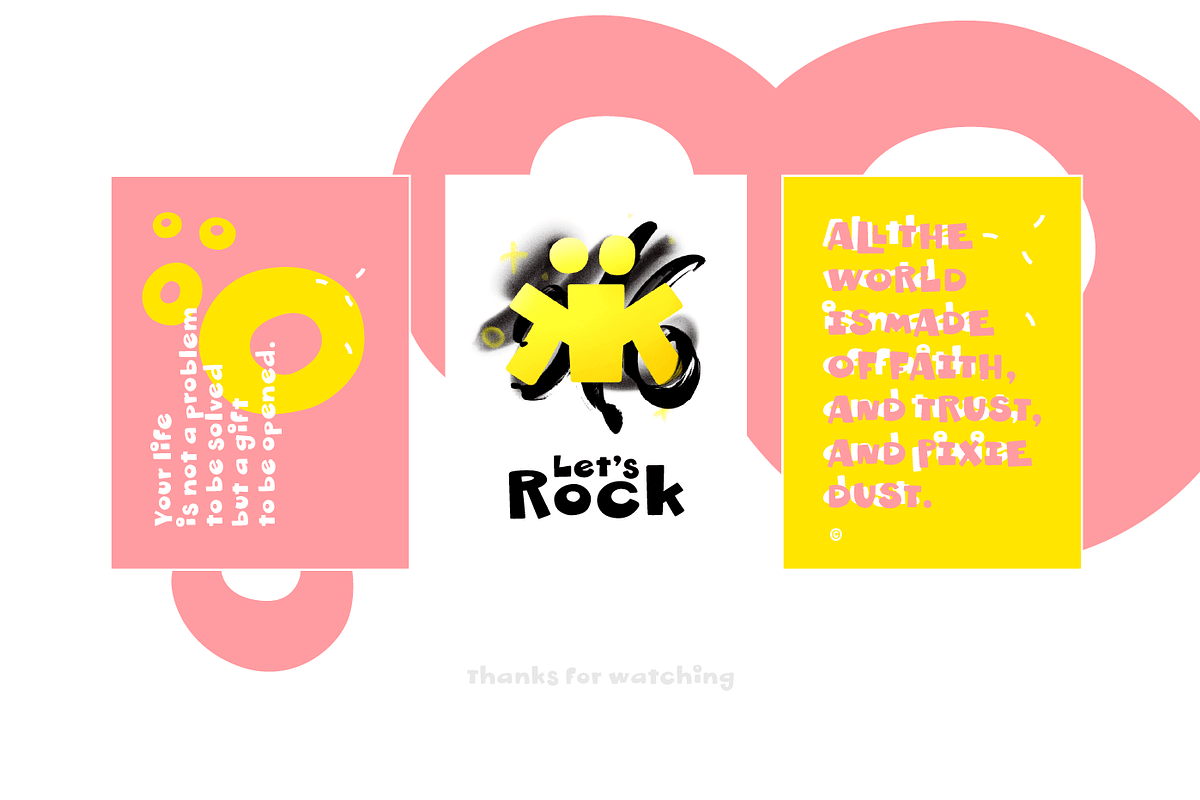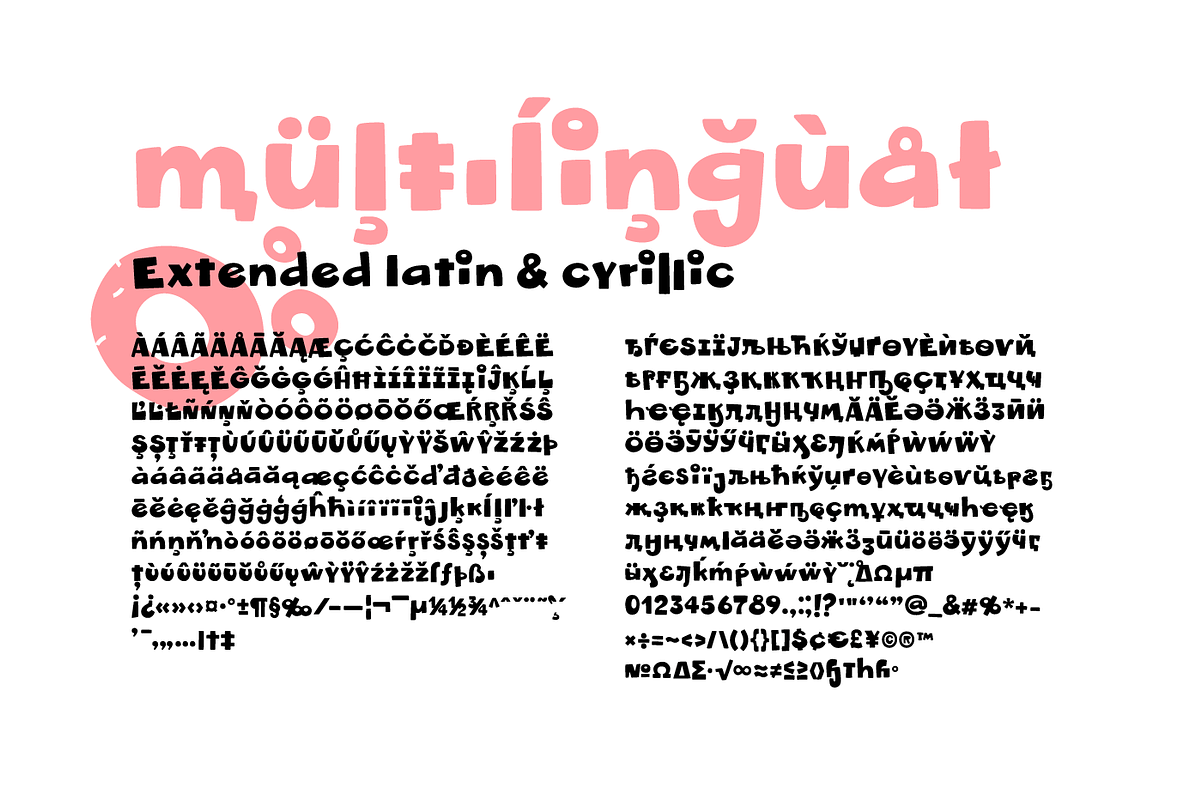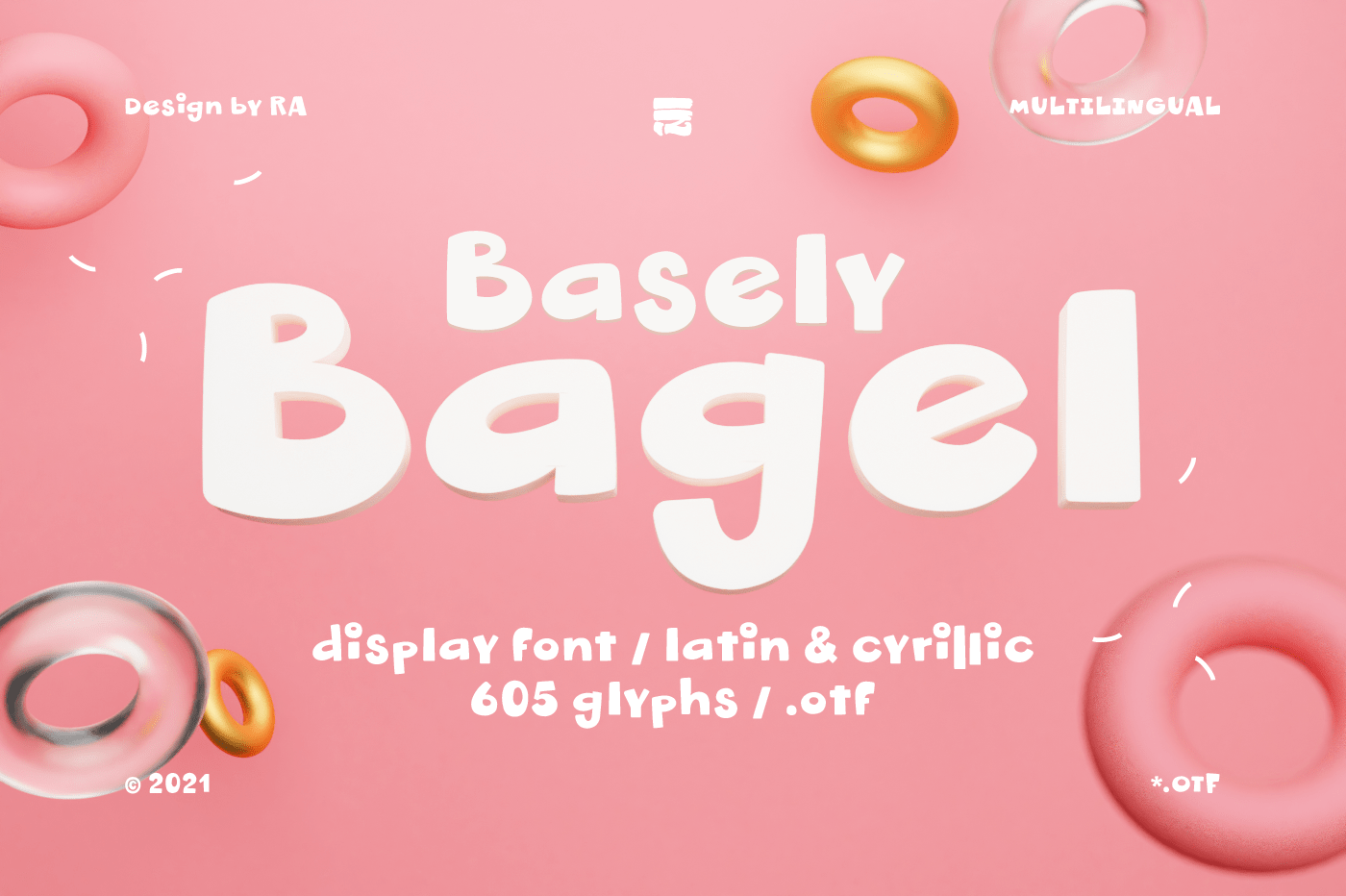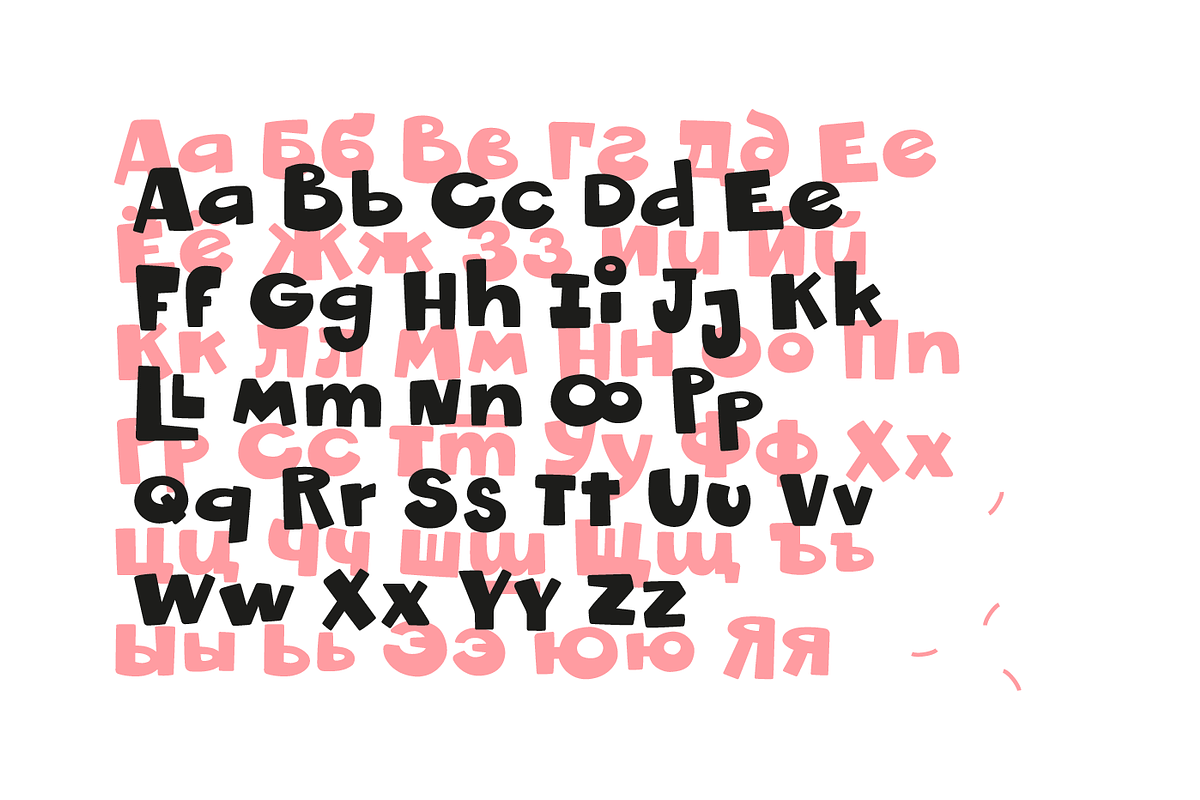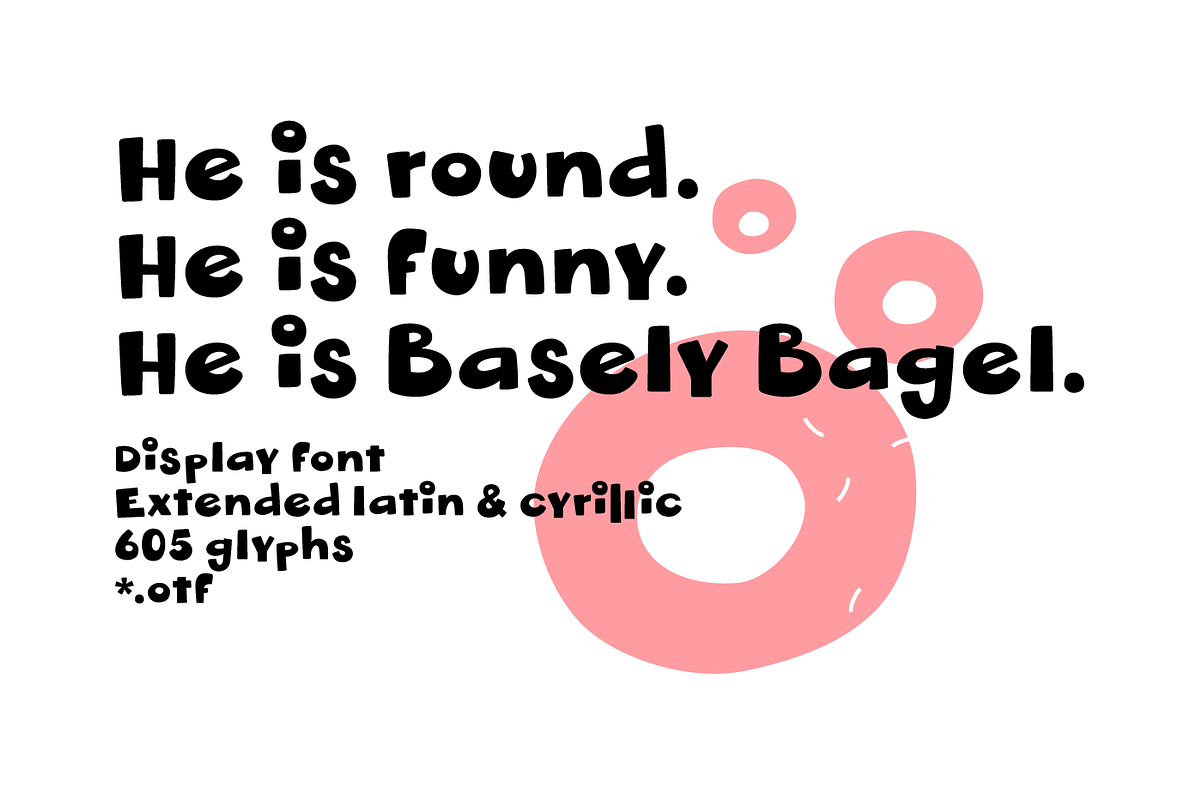
Basely Bagel - Display Font
He is round. He is funny. He is Basely Bagel font. It is perfect for eye-catching signs, posters, headers, product packaging, book cover, logotype, apparel design and etc.
- Display font
- Extended latin & cyrillic
- 605 glifs